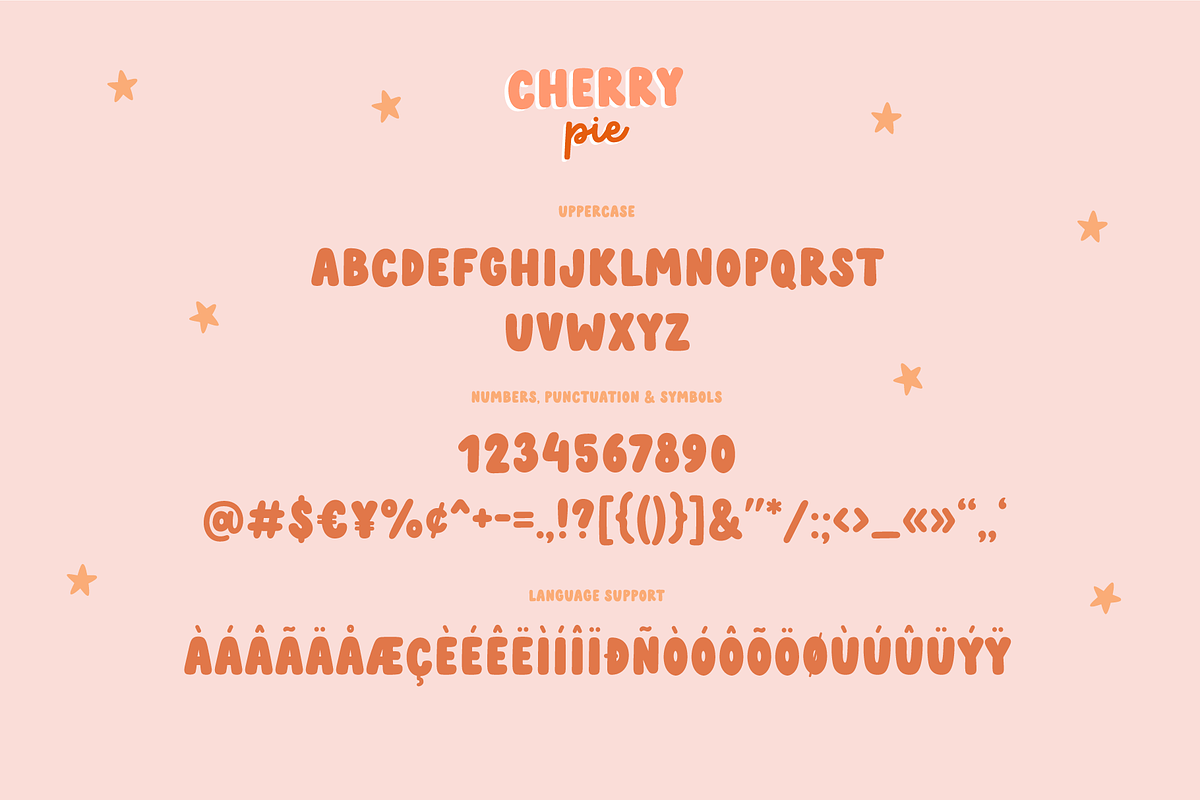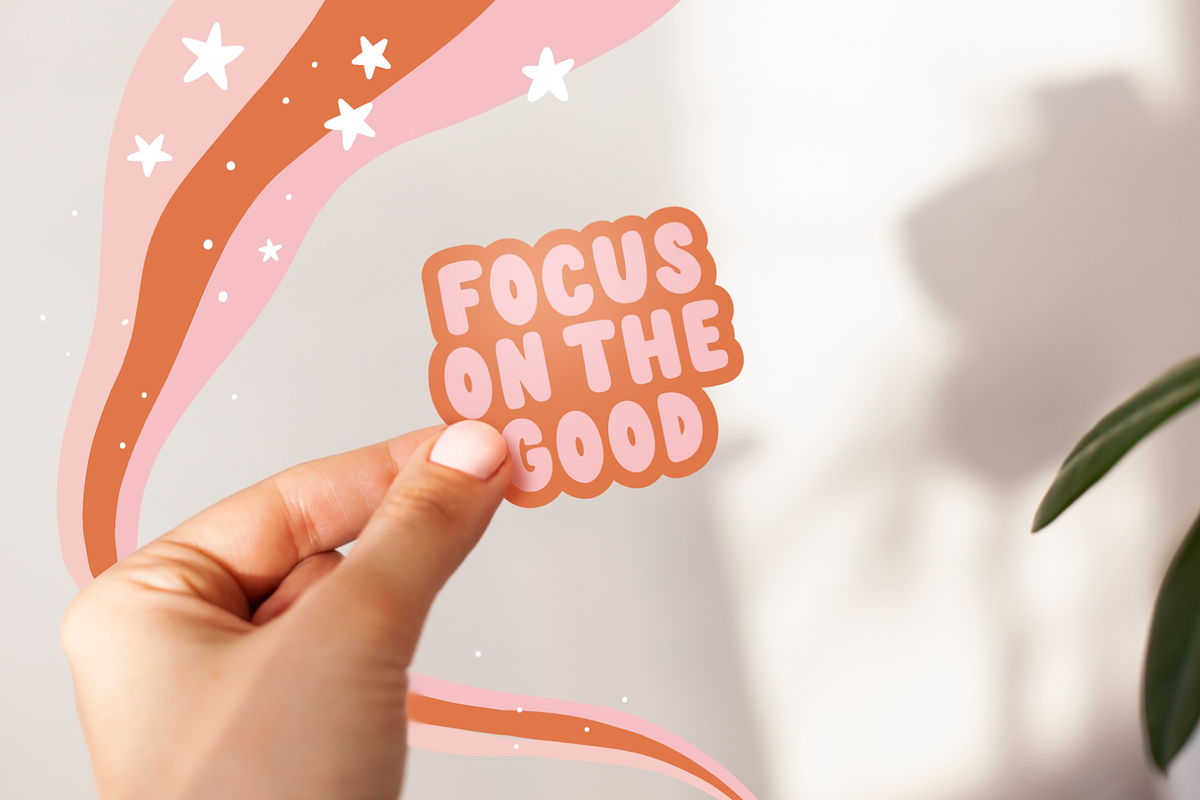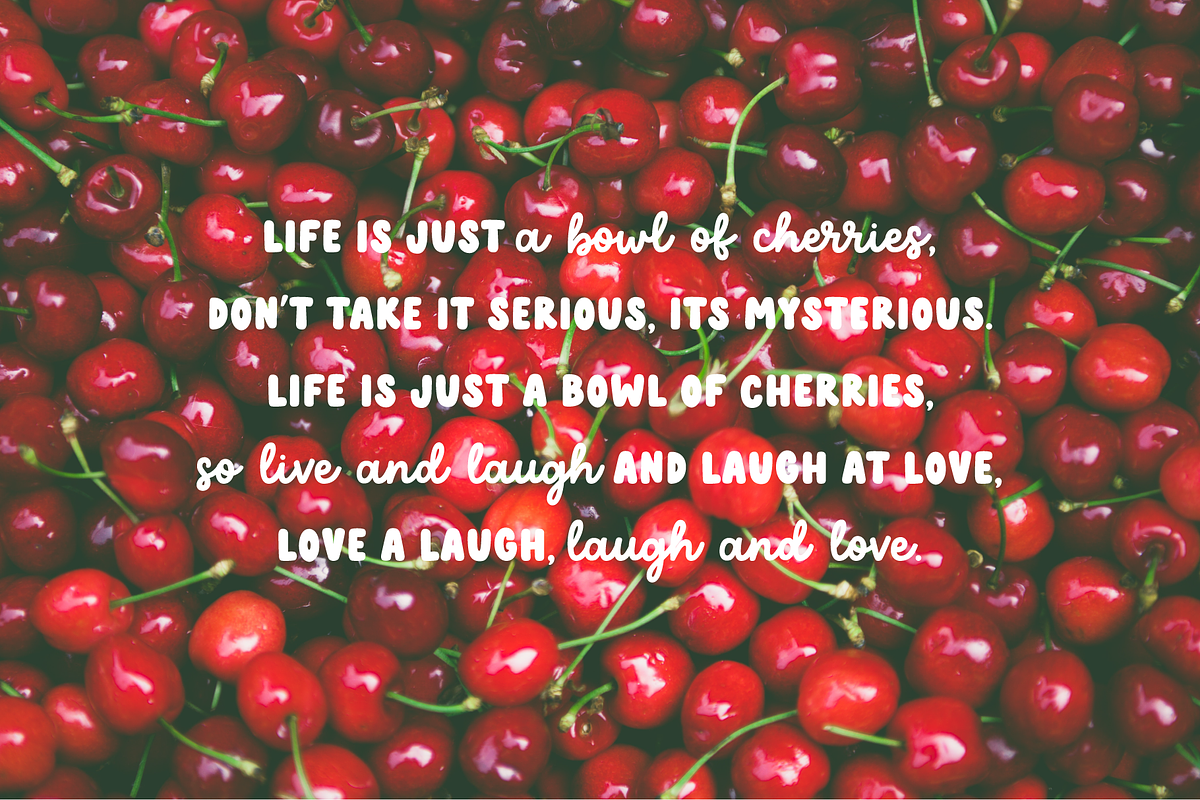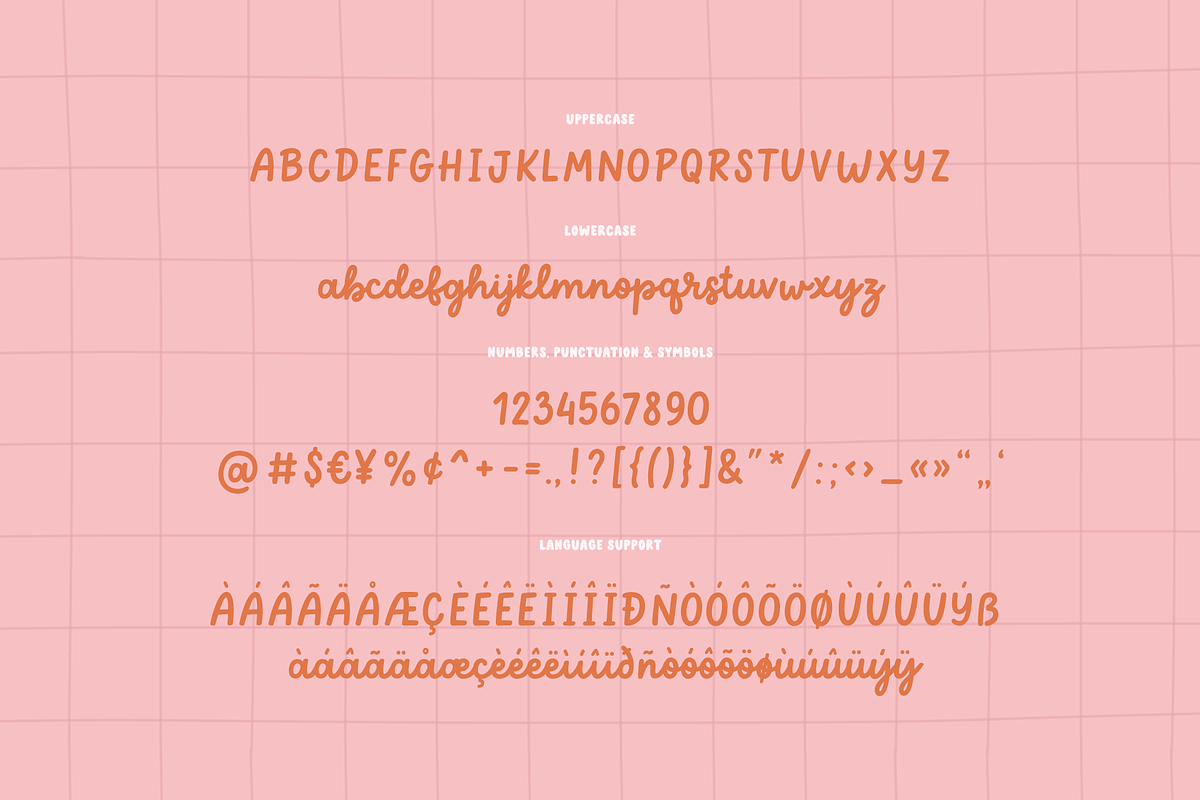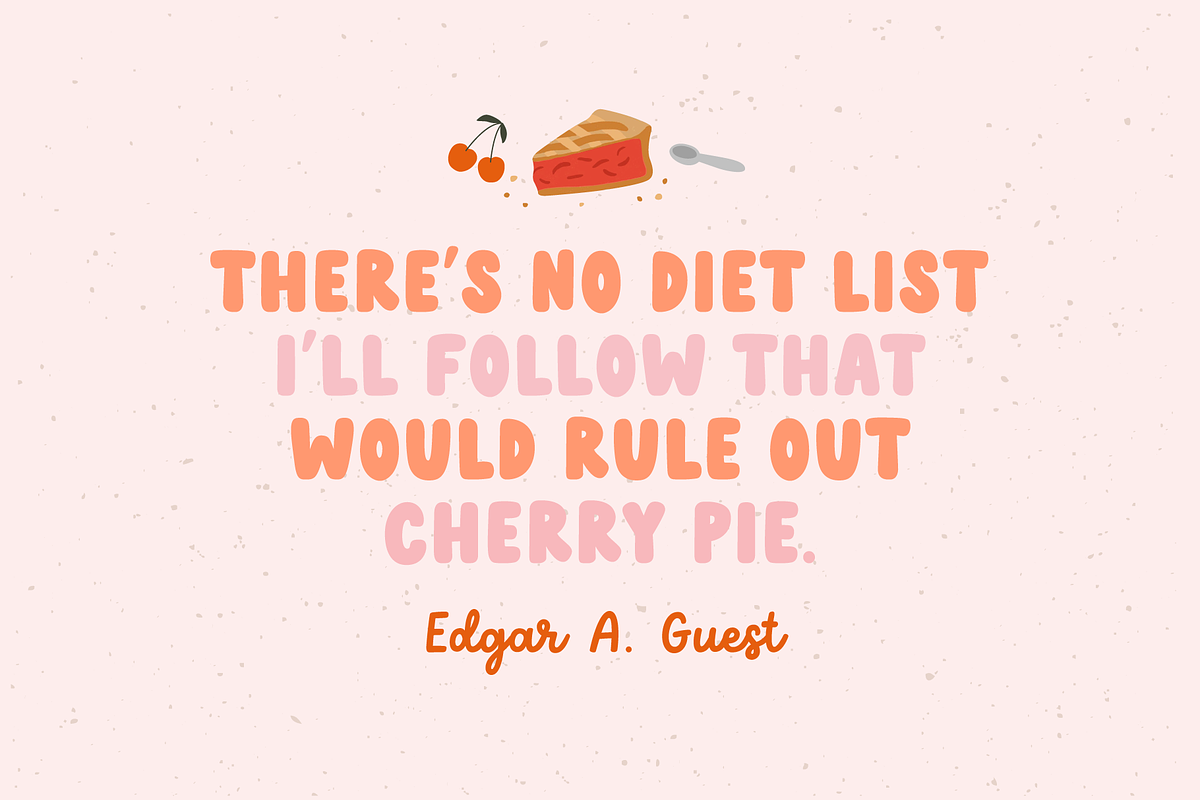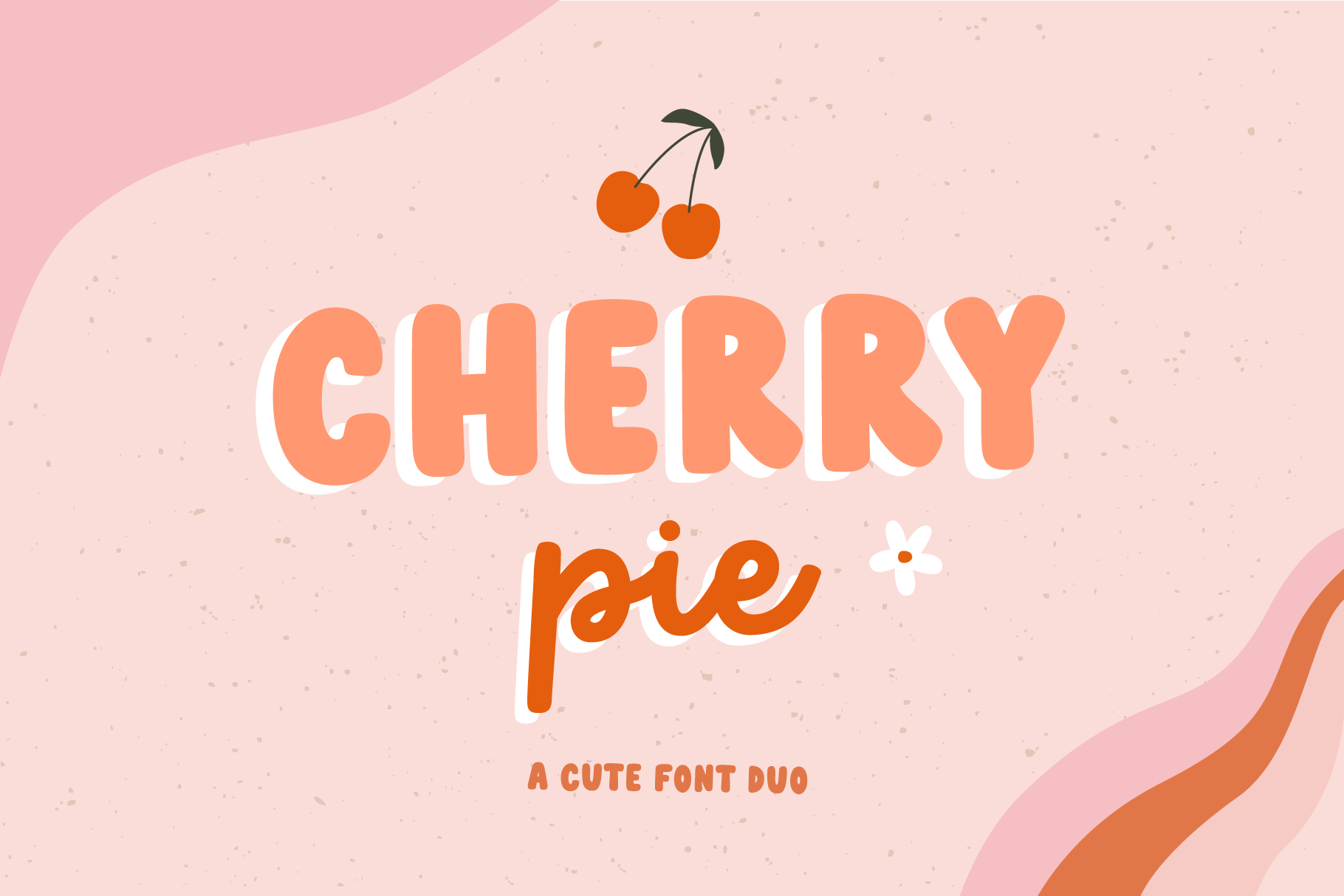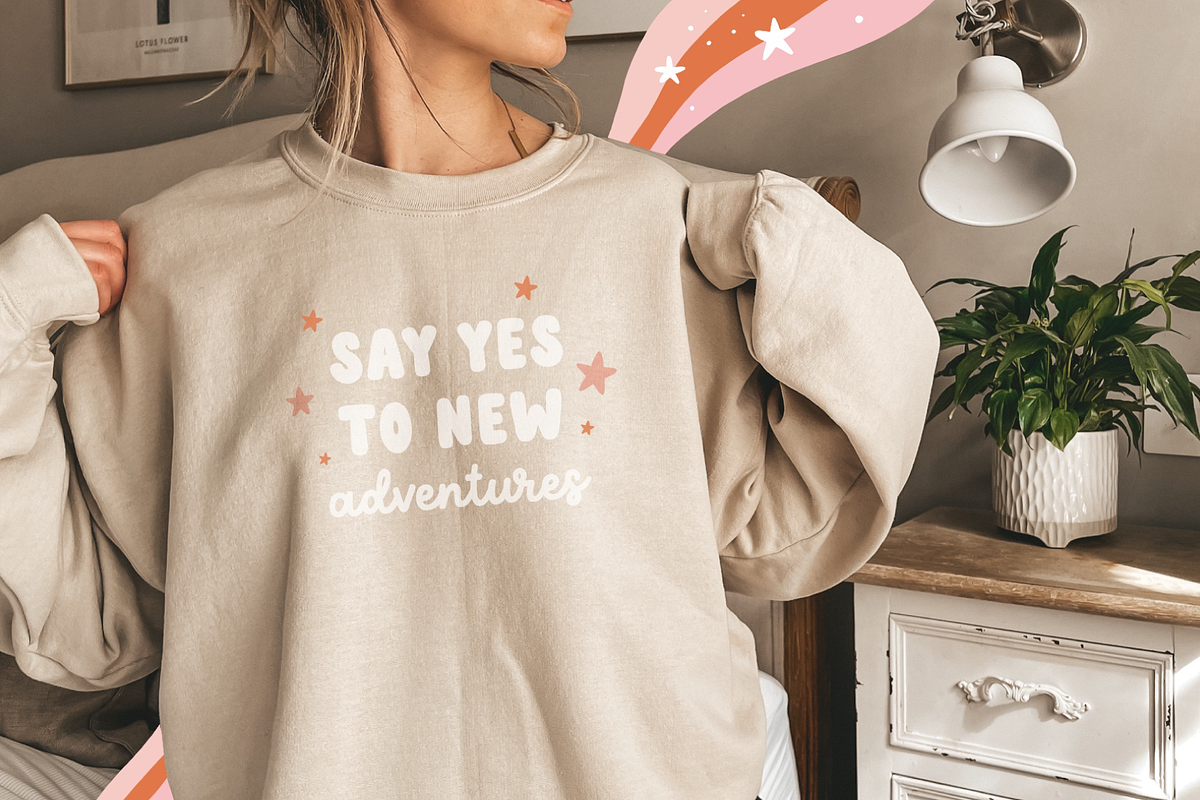
Cherry pie | Font duo
Cherry pie - a super fun and playful hand-lettered bold typeface. It is perfect for headings, flyer, greeting cards, product packaging, book cover, printed quotes, logotype, apparel design, album covers, etc.